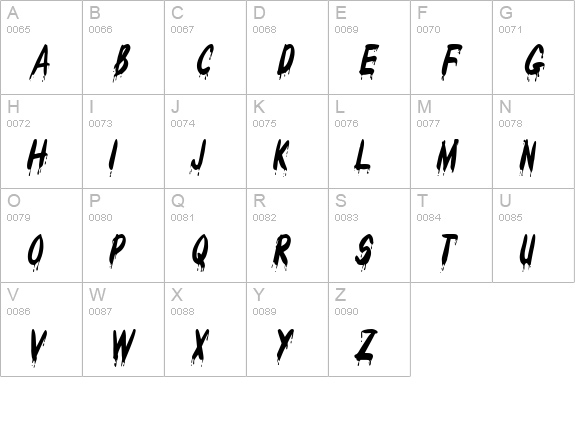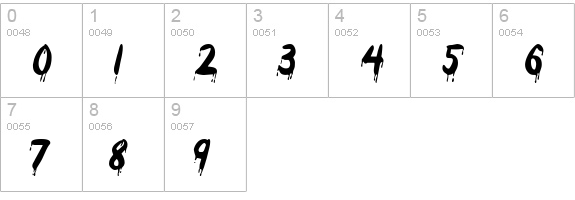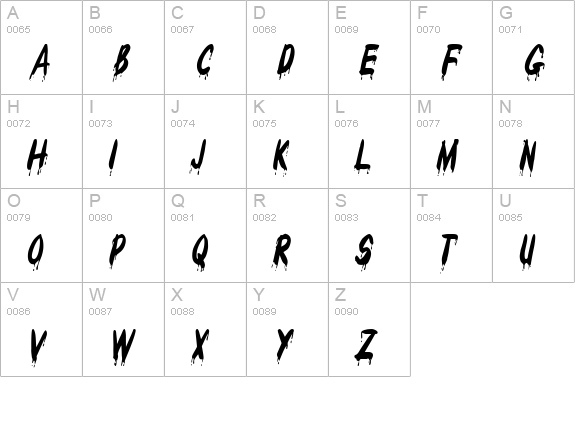
DripsCondensed Italic Font Details
DripsCondensed Italic is a distinctive, italic variant in the DripsCondensed typeface family \xE2\x80\x94 well suited to design and typography projects.
DripsCondensed Italic font is a sleek and modern typeface that exudes sophistication and style. Its slanted design adds a touch of elegance to any project, making it perfect for branding, logos, and creative designs. The condensed style of the font allows for efficient use of space, making it ideal for headlines and titles that need to make a bold statement. What sets DripsCondensed Italic font apart is its unique drips and fluid shapes that give it a distinct and artistic look. The italicized letters add a dynamic flair to the text, making it stand out and draw the eye. Whether you're working on a poster, website, or any other creative project, this font will add a touch of creativity and originality. Best of all, DripsCondensed Italic font is available for free download at FontsMarket.com. So, you can easily access this stylish and versatile font to enhance your designs without breaking the bank. Don't miss out on the opportunity to add DripsCondensed Italic font to your font collection today and take your projects to the next level.